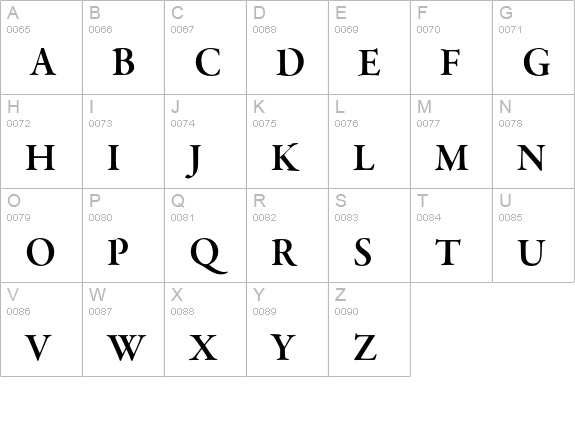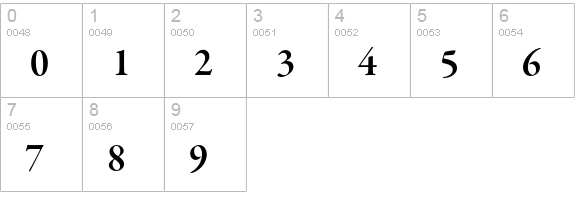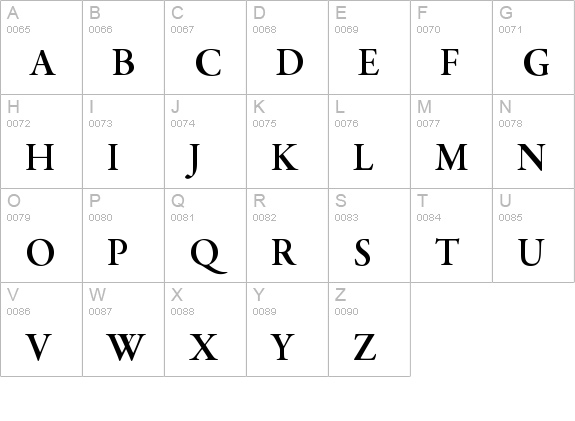
Garamond Premier Pro Semibold Subhead Font Details
Garamond Premier Pro Semibold Subhead is a sub-bold, structured variant in the Garamond typeface family \xE2\x80\x94 well suited to sub-headlines and emphasised passages.
Garamond Premier Pro Semibold Subhead font is a sophisticated and elegant typeface that exudes professionalism and classic charm. With its bold weight and refined details, this font is perfect for creating eye-catching subheadings that command attention. The sturdy serifs and balanced letterforms make it highly readable, ensuring that your message is conveyed with clarity and impact. Best of all, Garamond Premier Pro Semibold Subhead font is available for free download at FontsMarket.com. This means you can easily access this premium font without any cost, making it a valuable addition to your typography collection. Whether you're designing for print or digital media, this versatile font is sure to elevate your projects and give them a touch of timeless sophistication. Download Garamond Premier Pro Semibold Subhead font today and take your design work to the next level!